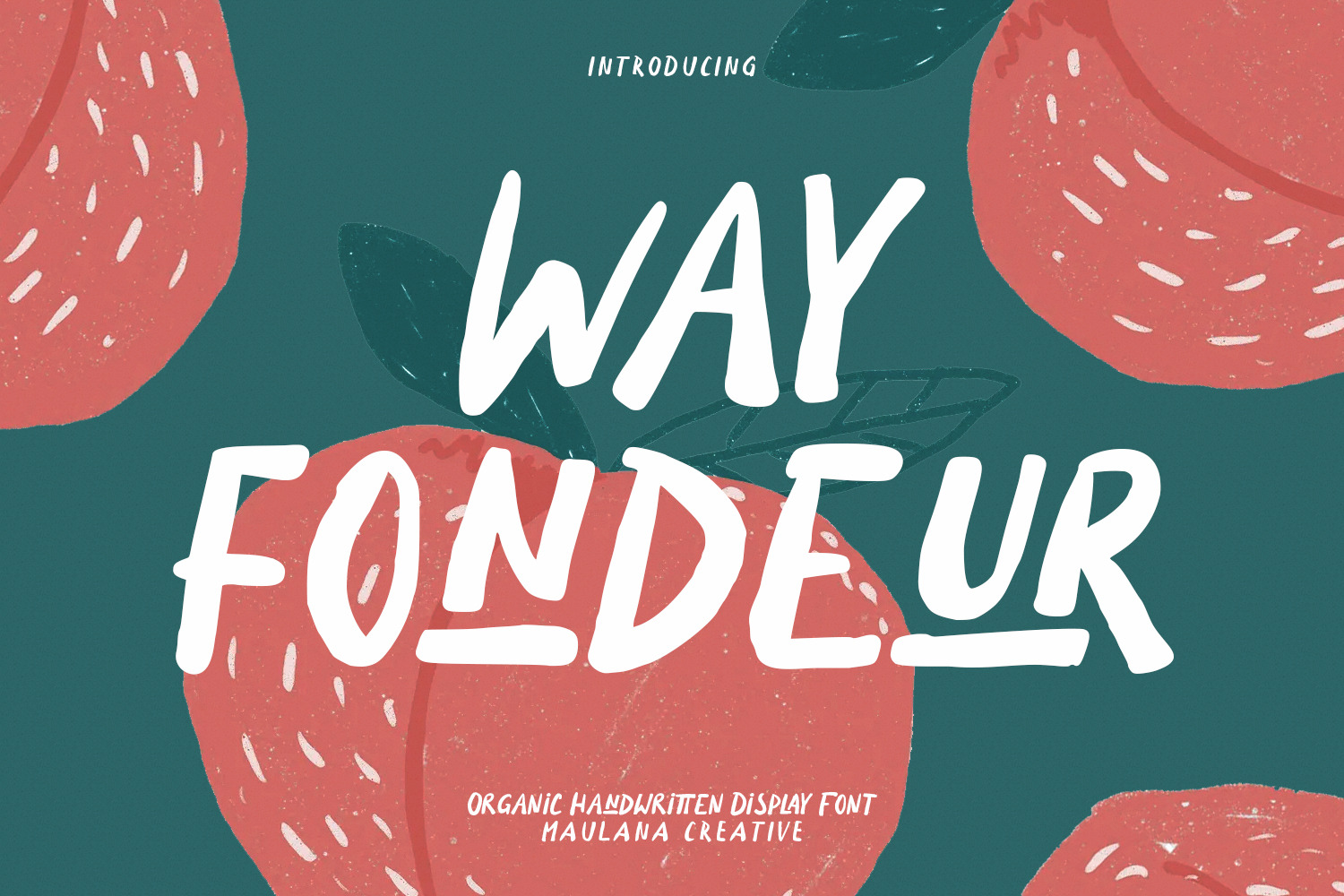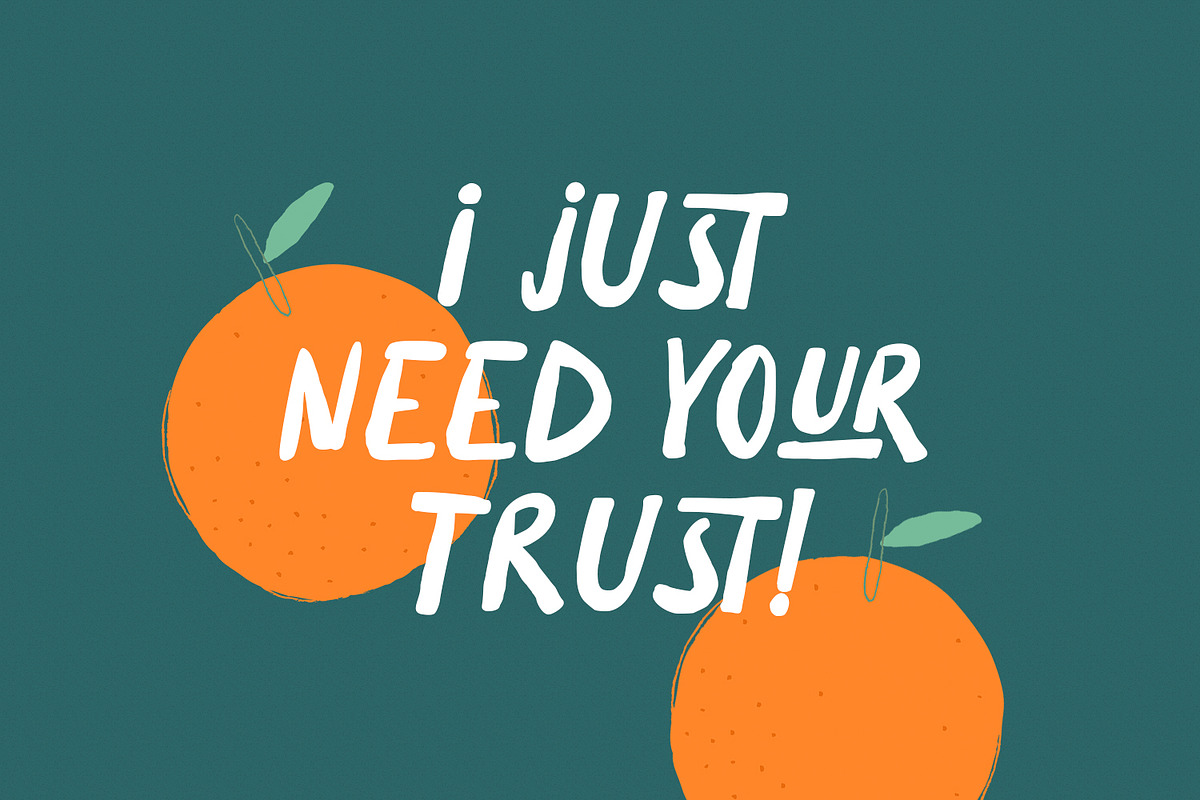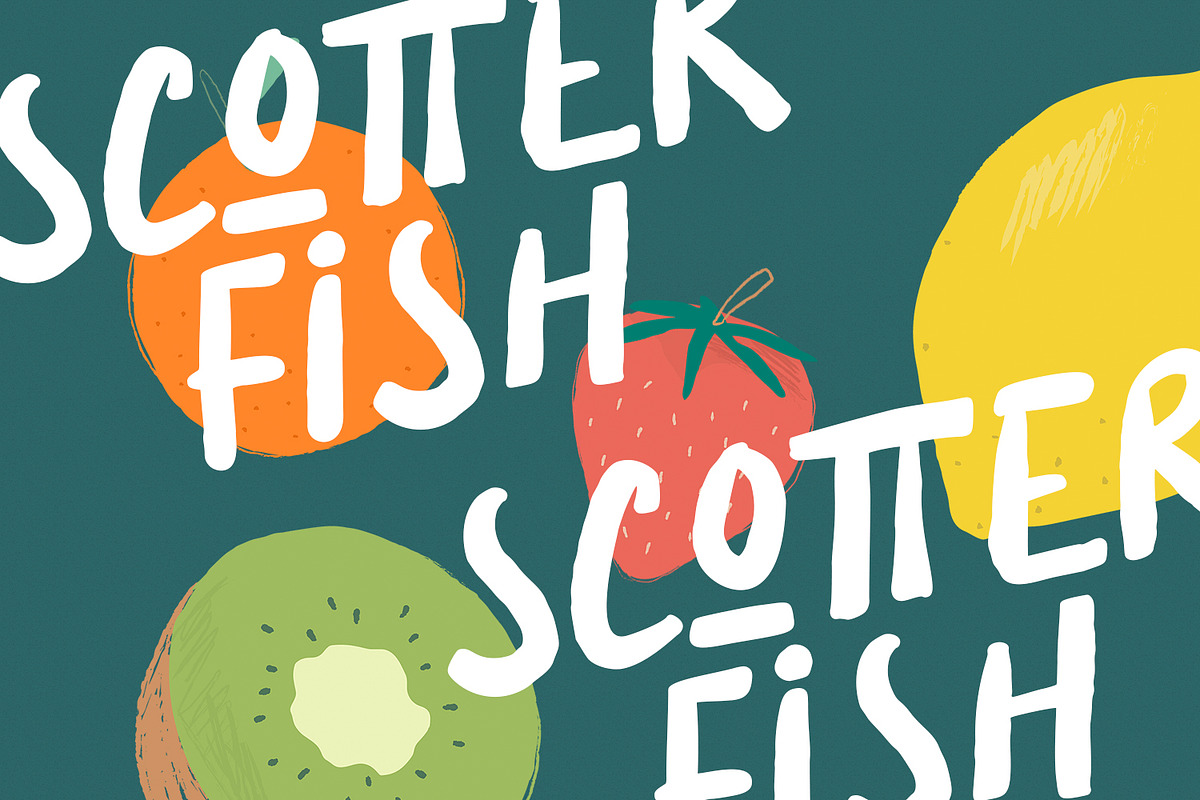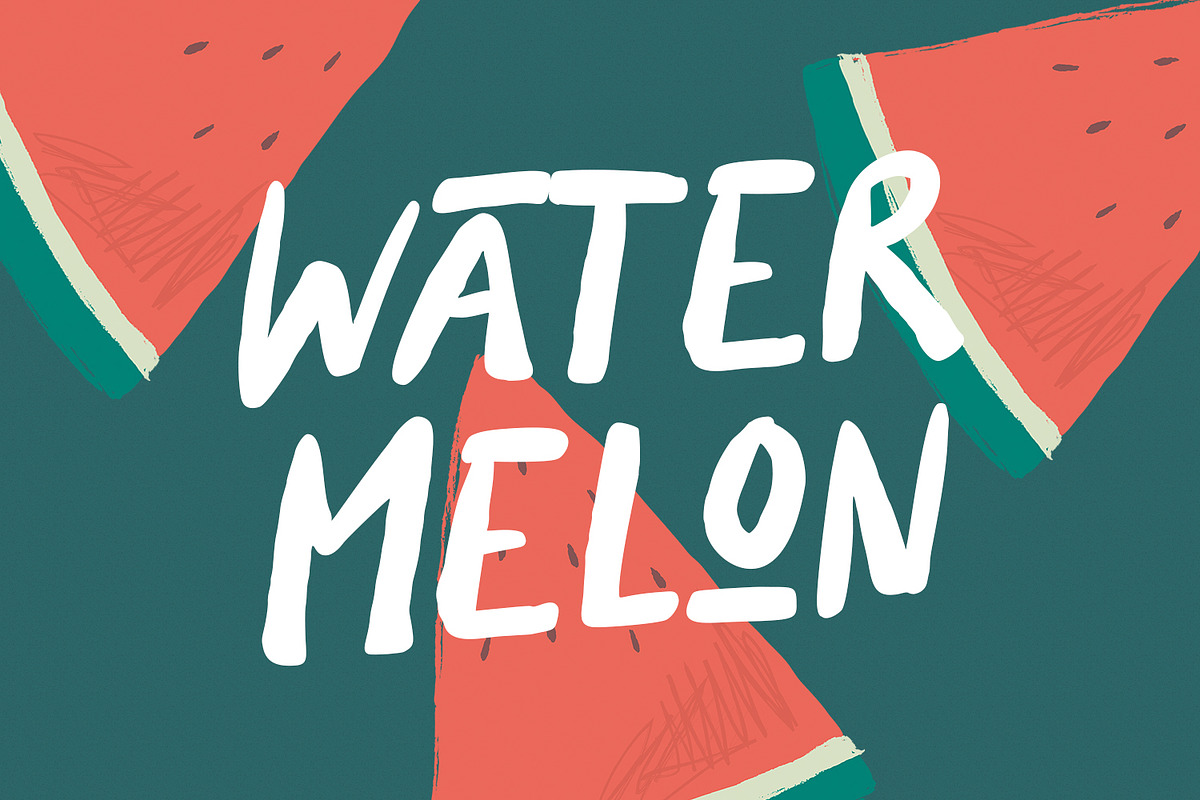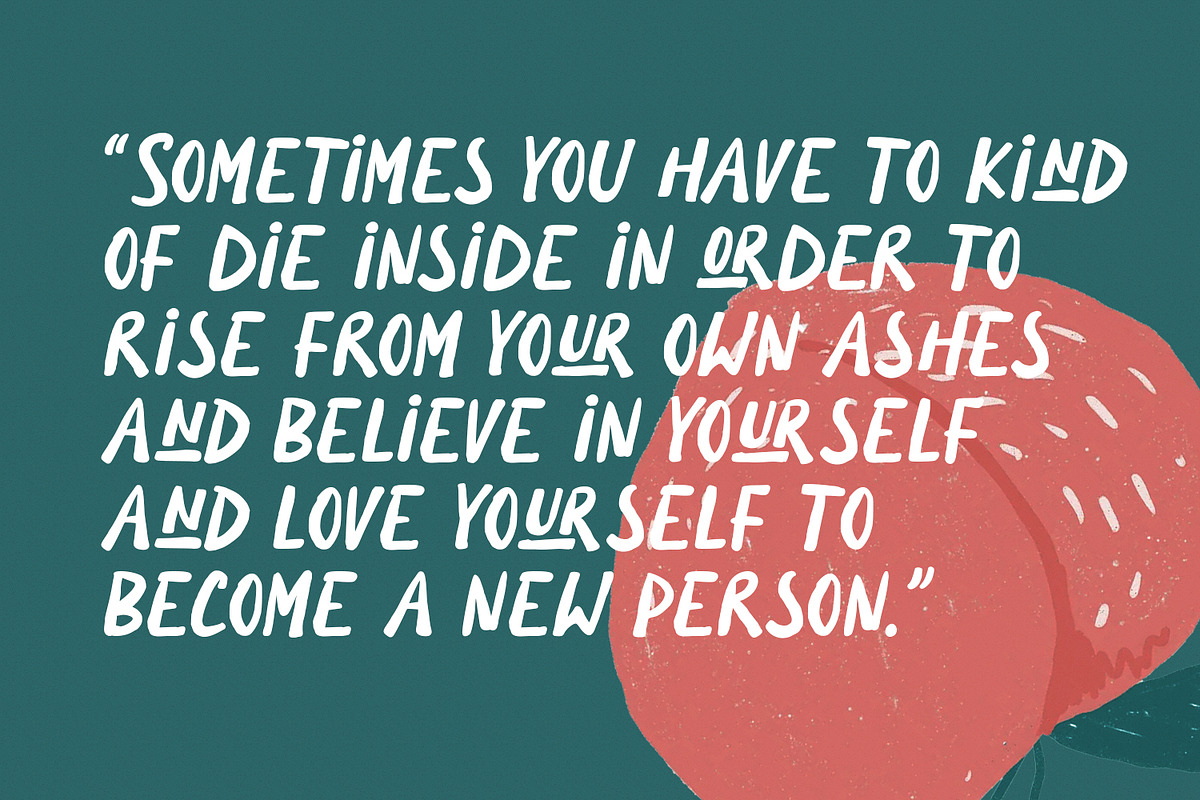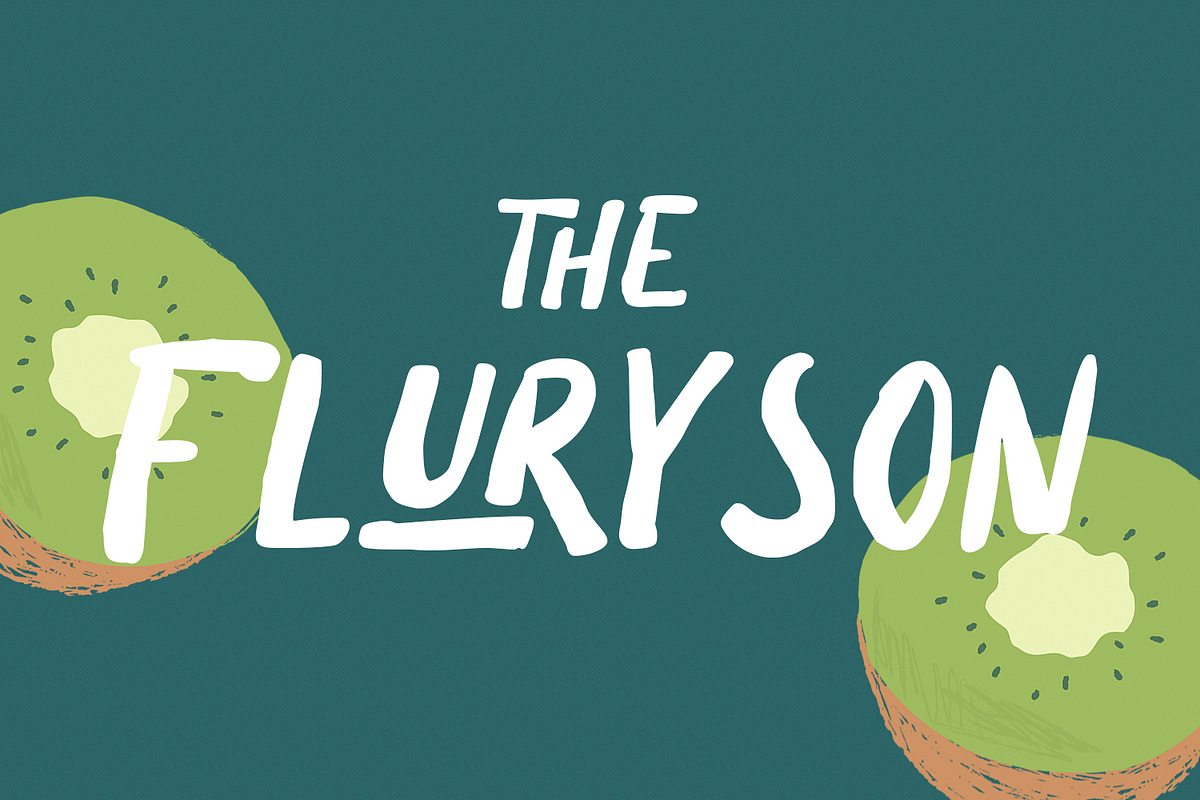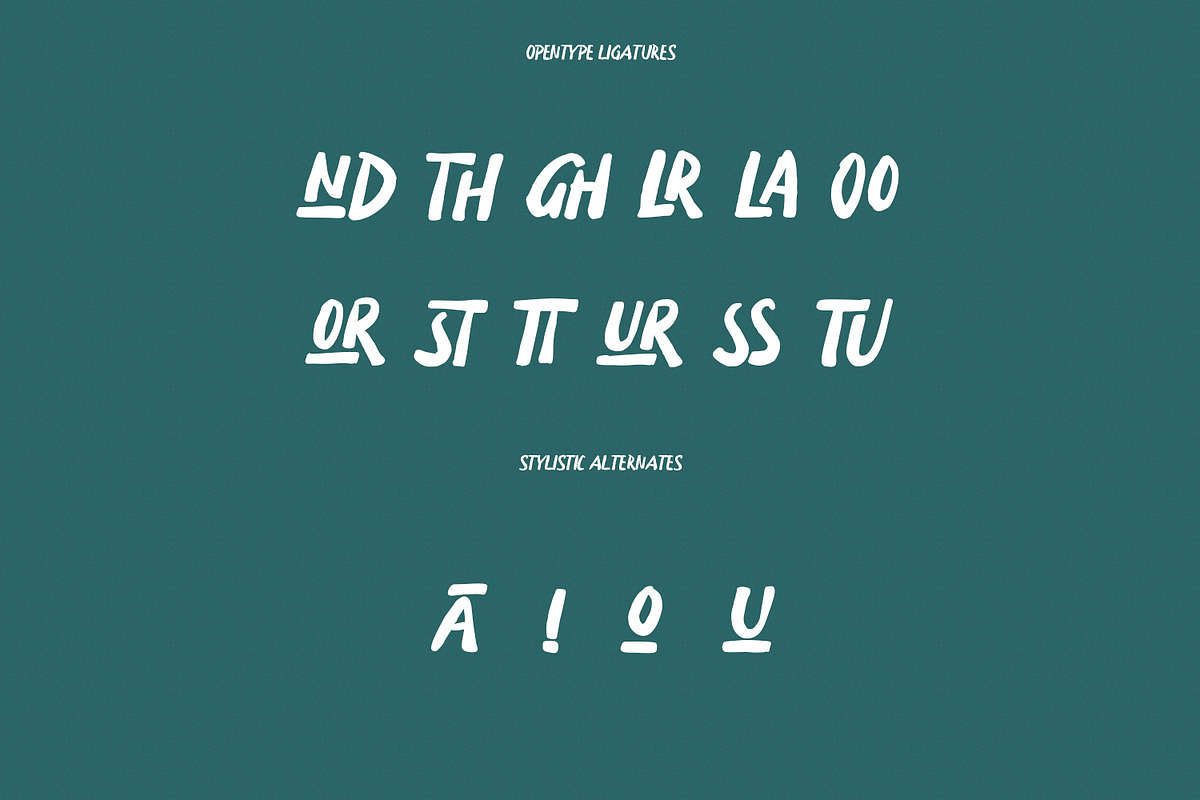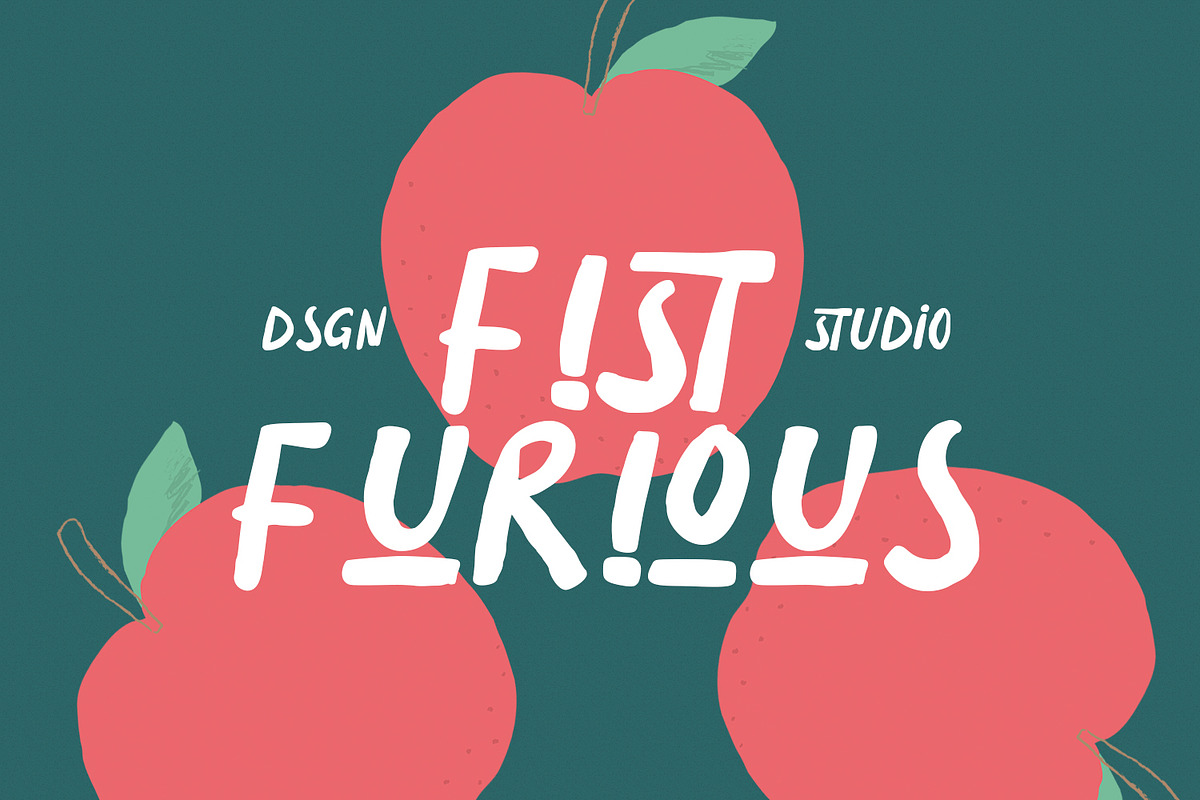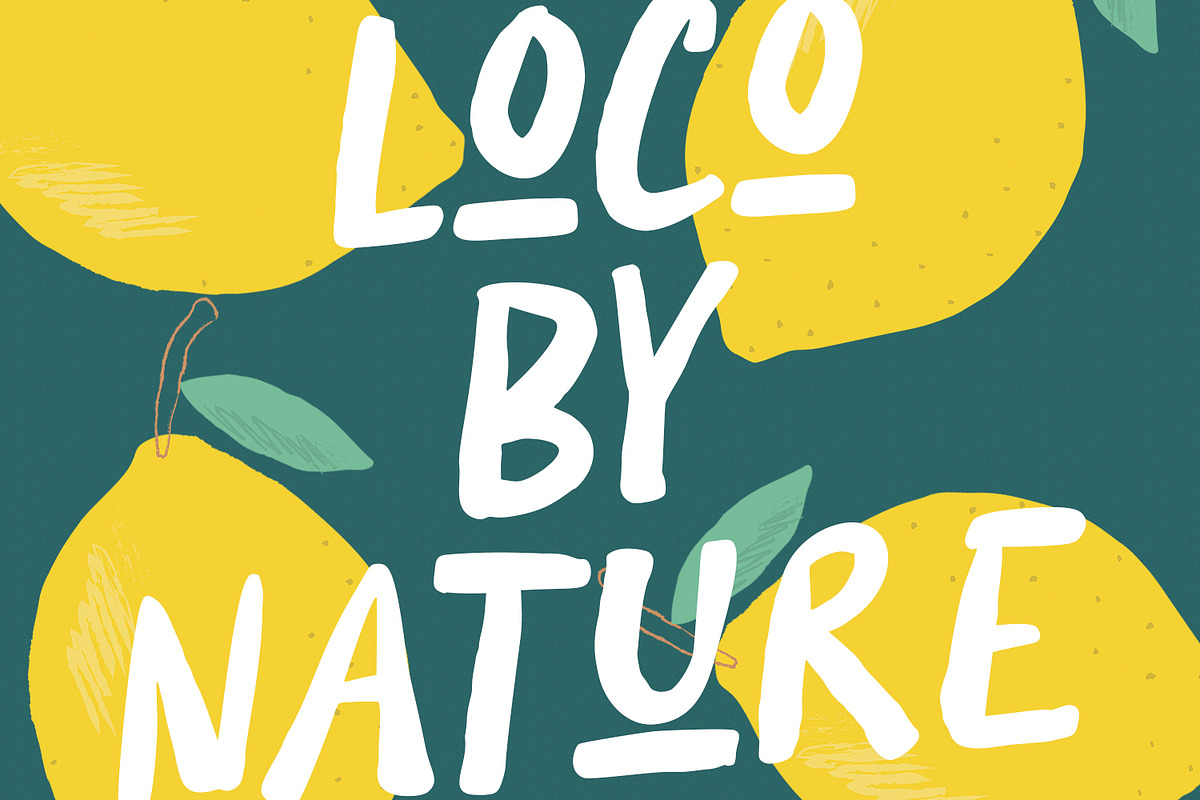
Wayfondeur Handwritten Display Font
Wayfondeur is a casual quirky handwritten display font. With medium scratch stroke, fun character with a bit of ligatures and alternates. To give you an extra creative work. Wayfondeur font support multilingual more than 100+ language. This font is good for logo design, Social media, Movie Titles, Books Titles, a short text even a long text letter and good for your secondary text font with sans or serif. Make a stunning work with Wayfondeur font.